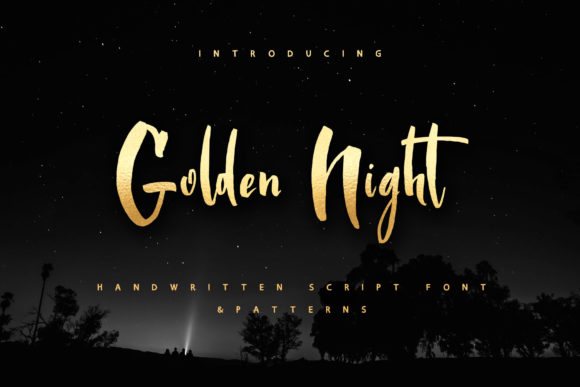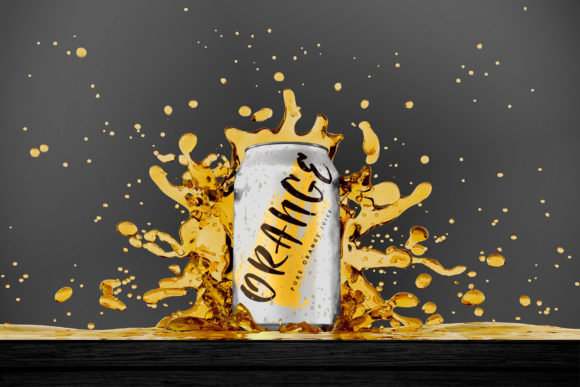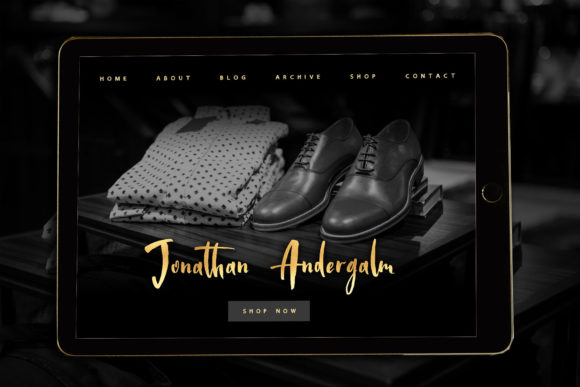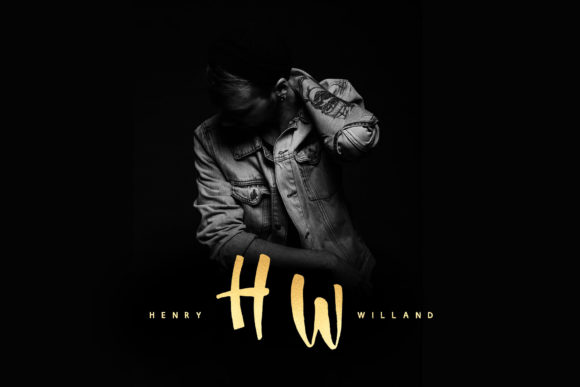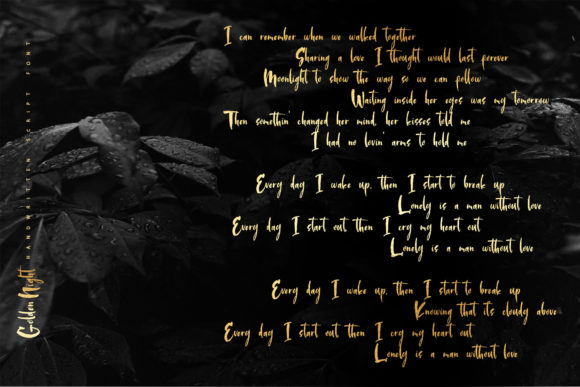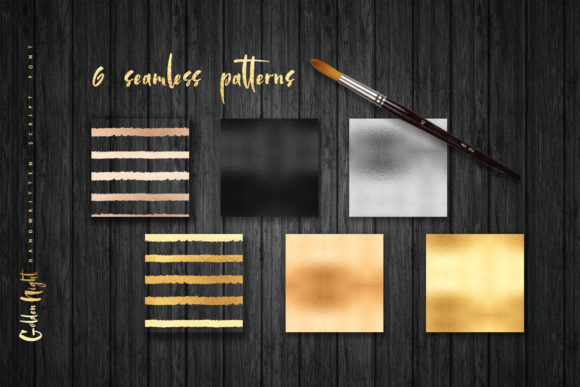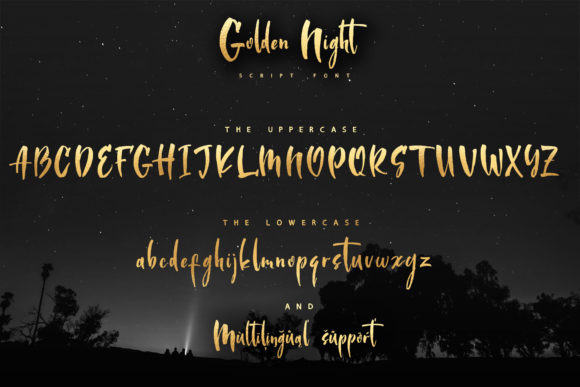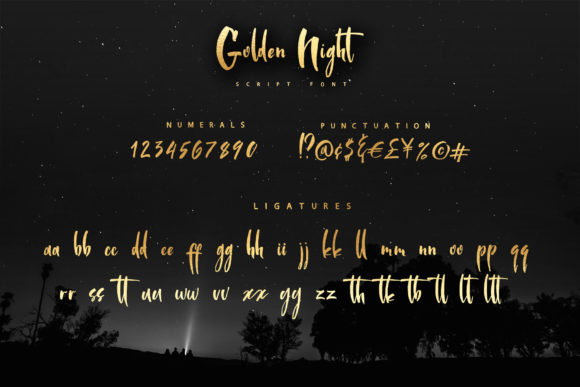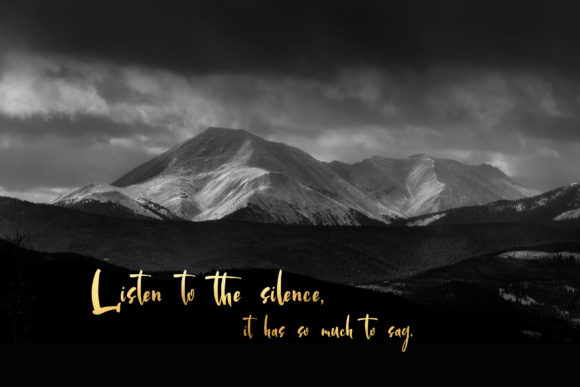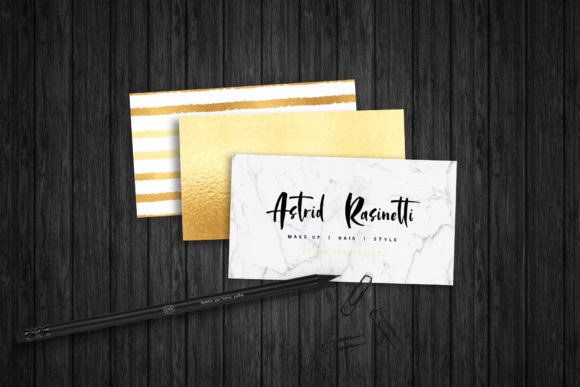
Golden Night Font
About Golden Night Font
Golden Night is a handwritten script font that will be perfect for branding, logos, wedding stationery, social media, packaging, and other projects that require an elegant touch. And additional extras – golden and Silver foil and shiny glitter patterns will be useful in all your design projects be it logos, signatures, labels, packaging design, blog headlines.